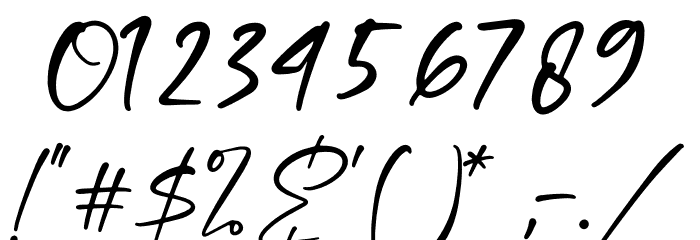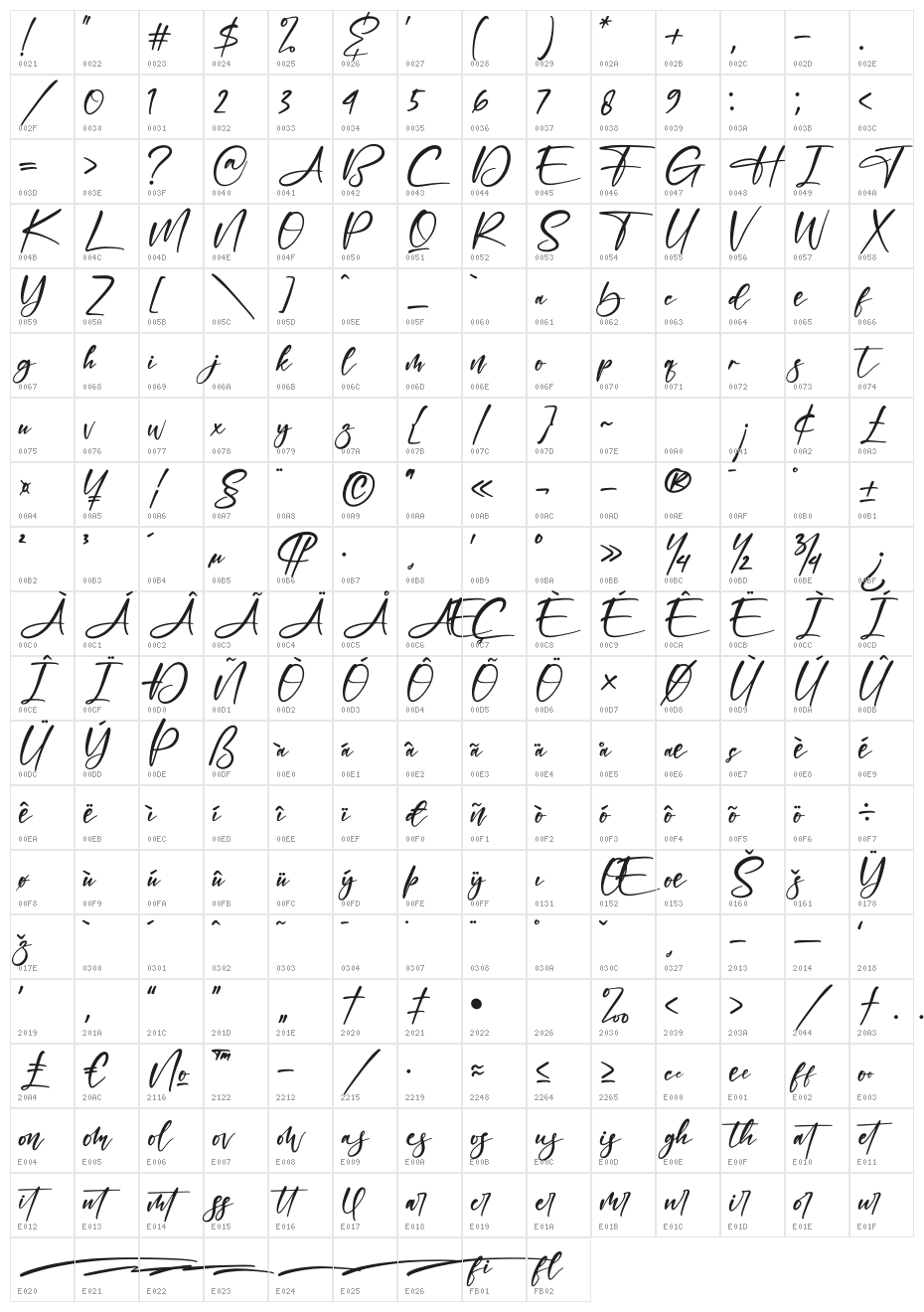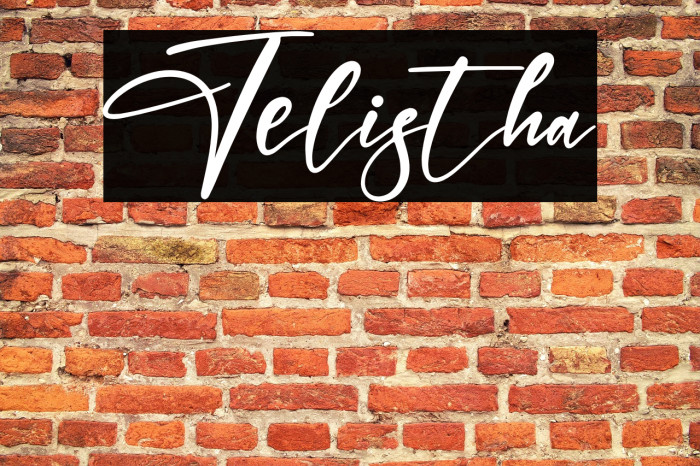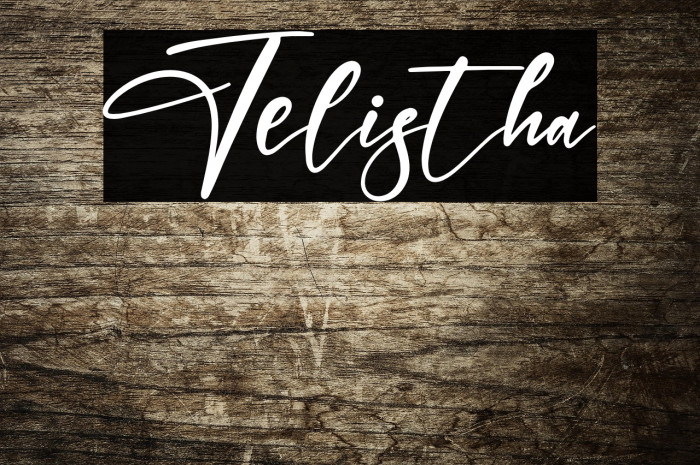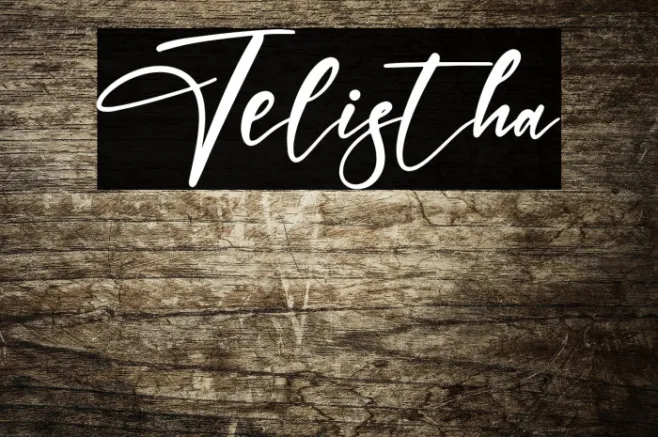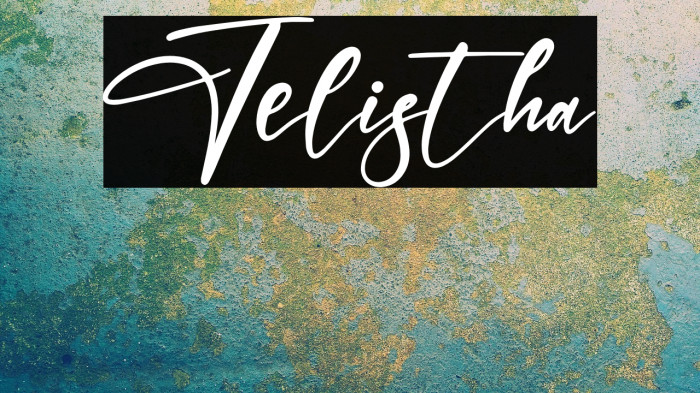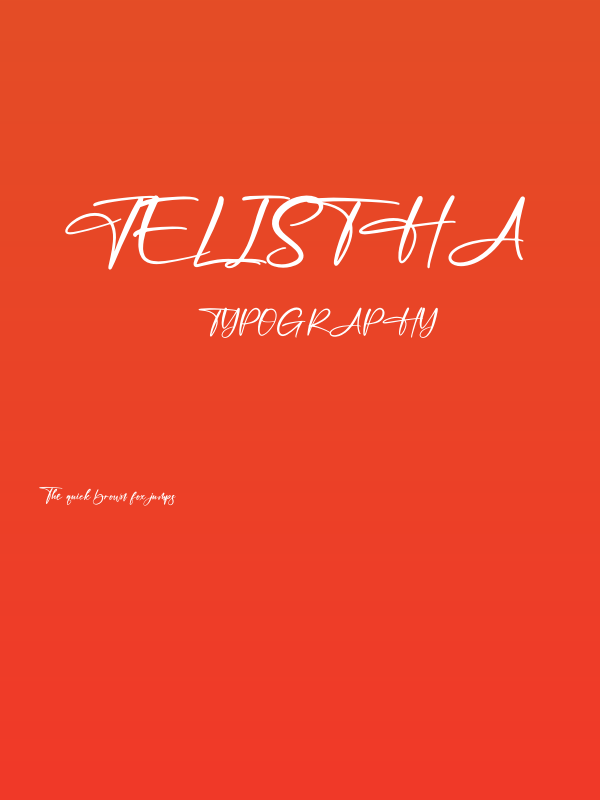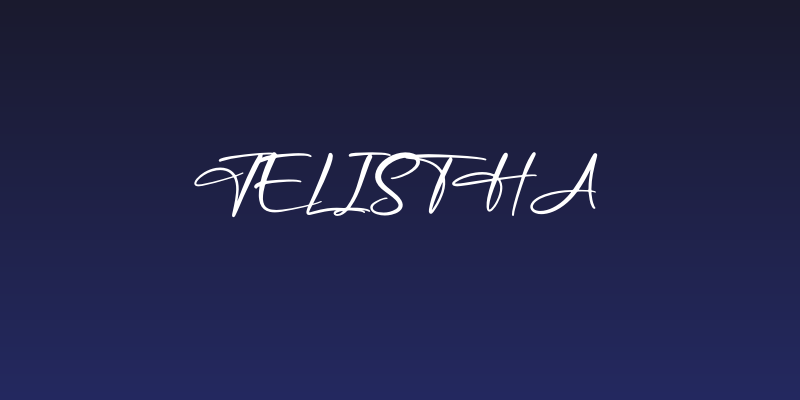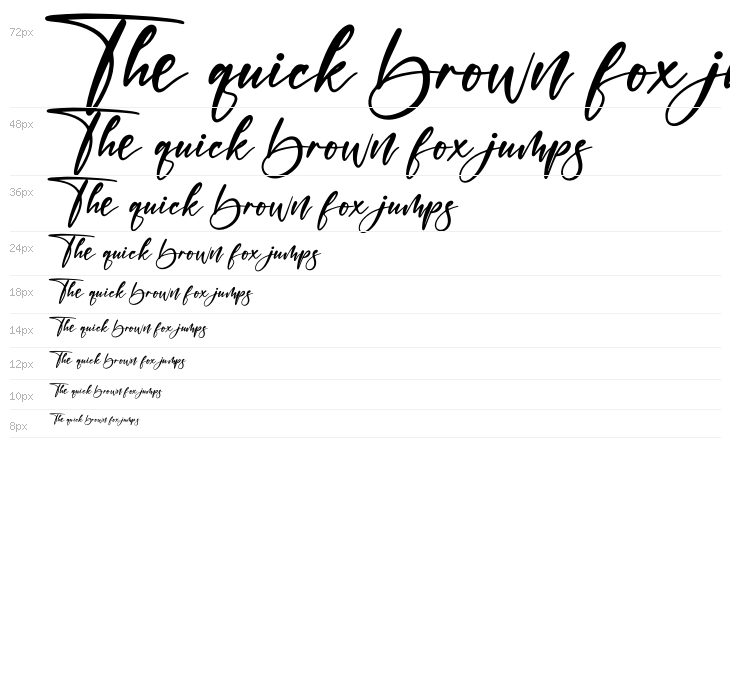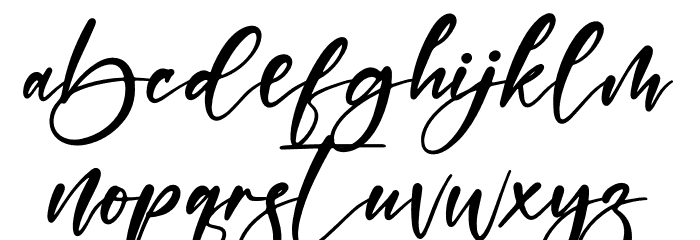
Jelistha Font
Jelistha Description
This font exudes a lively and dynamic energy with its fluid, cursive style. The characters are elegantly connected, giving a sense of continuity and flow. The uppercase letters are slightly more structured, while the lowercase letters exhibit a playful, handwritten quality. The numbers and special characters maintain the same energetic style, making them cohesive with the alphabet. The strokes vary in thickness, adding a natural, hand-drawn feel. This font is perfect for projects that require a personal touch, such as invitations, greeting cards, or branding materials that aim to convey warmth and creativity.
| Proposed Projects | Ideal for invitations, greeting cards, branding materials, and creative projects. |